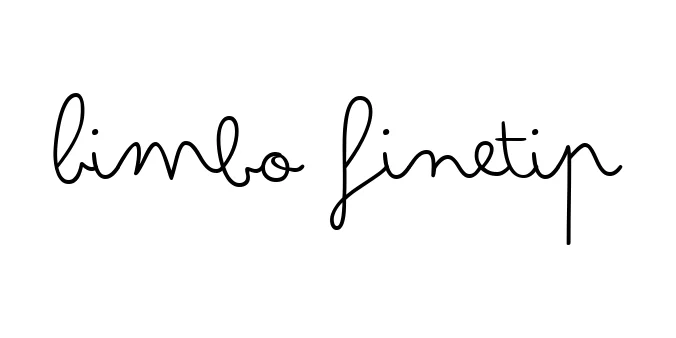
Bimbo Finetip
Designed by Francesco Canovaro
Bimbo is a mono-line script font family designed by Francesco Canovaro for Zetafonts. It is inspired by the simple, charming handwriting of children or casual, hurried notes. The Finetip version specifically mimics the look of a very thin felt-tip pen or a fine-liner, offering a delicate and authentic hand-drawn feel that avoids the over-processed look of many digital scripts.
Released as an evolution of the broader Bimbo series, it features a wide range of weights and variants, including multi-language support and various OpenType features. Its minimalist aesthetic makes it a popular choice for contemporary branding, social media graphics, and packaging where a personal, human touch is required without sacrificing legibility or modern style.
Bimbo Finetip Best Uses
Ideal for logos that need a personal, handcrafted touch.
Perfect for Instagram quotes and relatable content.
Great for organic or artisan product labels.
Suitable for invitations and thank-you notes.